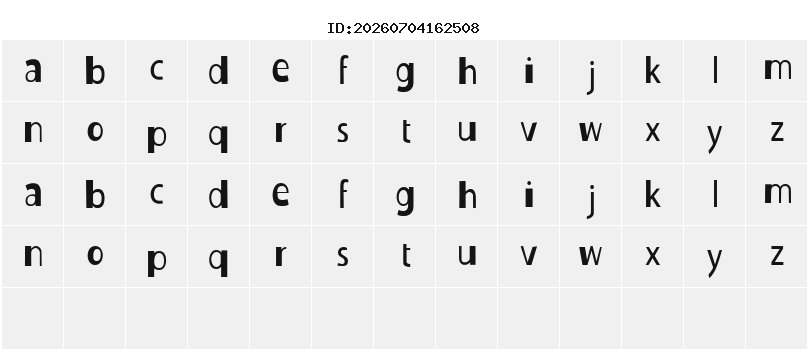
• Font Name: Duckie
• Manufacturer: April Warner
About Duckie.ttf
Duckie.ttf is a modern, elegant sans-serif font designed for ultimate readability and visual harmony. Perfect for branding, headlines, web design, and print materials.